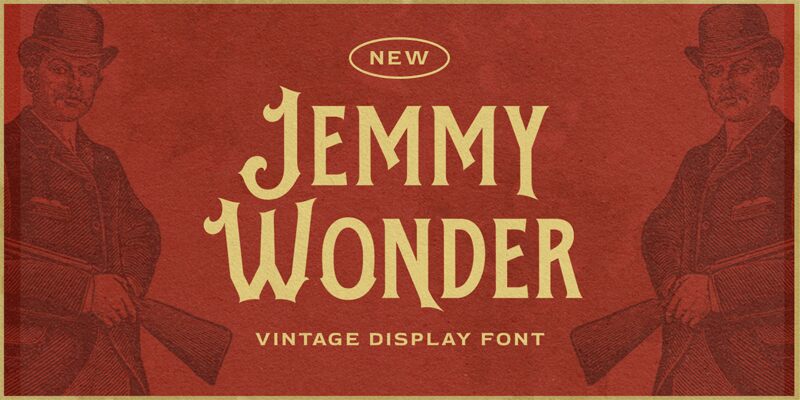
Jemmy Wonder font by Letterhend Studio is a wonderfully crafted playful display typeface. The elegant design offers playful visuals inspired by a fun retro style. Its accentuated whimsical curves can easily build prominent vintage style works instantly.
The decorative high-contrast fonts can be used in logo design, branding, packaging design, posters, and signage projects among others. It’s mainly a display font that goes best for big-size use in artistic layouts and lettering projects at large for personal as well as commercial purposes.